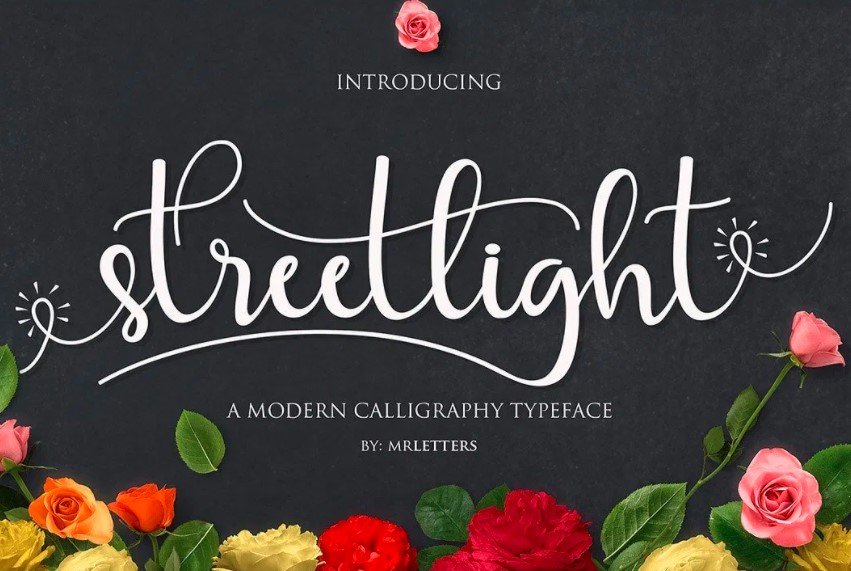
He introduced this handmade calligraphic texture to the graphic designer to creates the best product or designs with this font will be the designer honour who
Introducing the Streetlight Script Font, an elegant and intelligent texture scripted typeface that is a best-seller on Creative Market. Recognized as one of the greatest fonts of all time, it was created by the talented designer MrLetters, who meticulously designed and shared this exceptional font.
He introduced this handmade calligraphic texture to the graphic designer to creates the best product or designs with this font will be the designer honour who designs this awesome font.
Designer of this font provided this font with all the features that is needed for designing the best font. If you want to use the font for pairing then yes you can do it with the combination of haettenschweiler font for getting astonished results.
The Streetlight Script Font is the famous and amazing typeface which was product of the combination efforts by MrLetters.